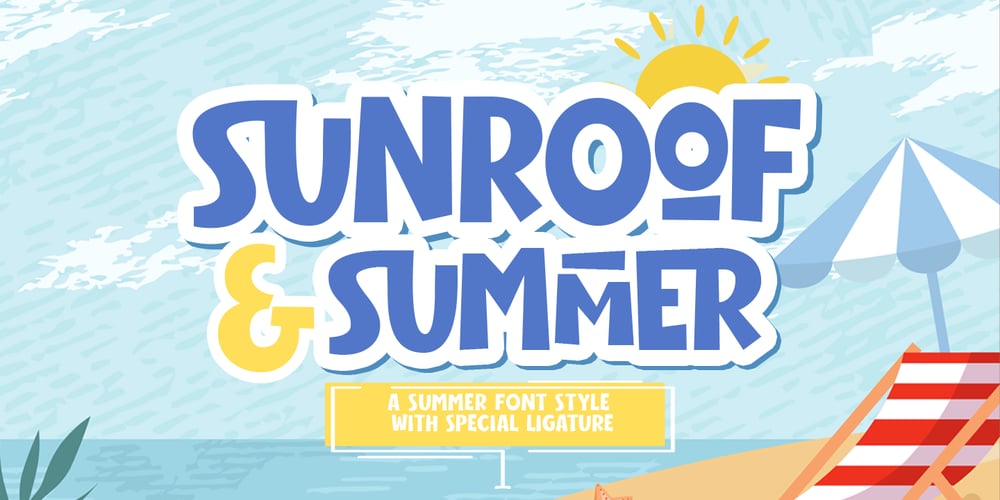
Sunroof & Summer Font Family was designed by Wildan Suprian Syah and published by Wildan Type. Sunroof & Summer contains 1 styles and family package options. Sunroof & Summer Font is a summer Style font by Wildan Type. It has simple, fun, and sweet look. Sunroof & Summer font is perfect used for; logos, greeting cards, a package design, a brand identity, craft design, any DIY project, book title, packaging, and more.Sunroof & Summer is also included full set of:uppercase and lowercase lettersmultilingual charactersnumeralsligatureWish you enjoy our font. 🙂